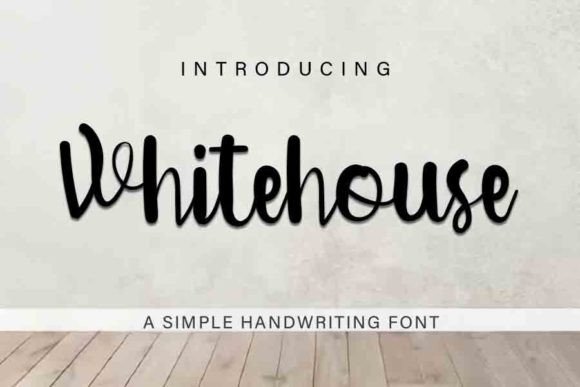
Immerse yourself in the captivating aura of Whitehouse Font, a script font family that exudes an enchanting blend of classic charm and contemporary elegance. Handcrafted by the talented Merry Joana, this display font is a visual masterpiece that will transform your designs into captivating works of art.
Whitehouse Font is more than just a collection of letters; it's an invitation to embark on a nostalgic journey, where the timeless allure of the past meets the vibrant energy of the present. Each meticulously crafted character dances across the page with a playful grace, evoking memories of simpler times while simultaneously embracing the boundless possibilities of the modern age.
With its effortlessly stylish curves and sweeping strokes, Whitehouse Font adds an irresistible retro touch to any design concept. Its versatility knows no bounds, making it the perfect choice for a wide range of projects, from eye-catching logos and branding materials to stunning invitations and social media graphics.
Unleash your creativity and let Whitehouse Font guide you to new heights of design excellence. Its intuitive flow and effortless charm will captivate your audience, leaving a lasting impression that resonates long after the page is turned.
So, why settle for ordinary when you can elevate your designs with the extraordinary? Embrace the timeless beauty of Whitehouse Font and embark on a creative journey that will leave you breathless. Let your imagination soar as you create designs that speak to the heart and leave an indelible mark on the world.